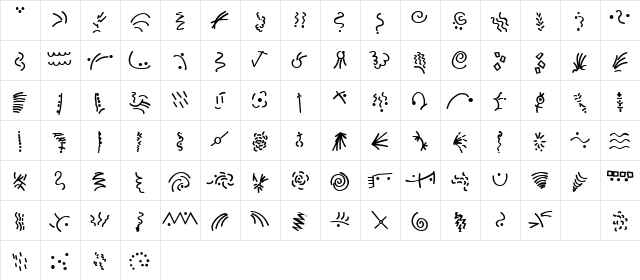
Mini Pics Confetti Medium Free Font
Mini Pics Confetti Medium
Style: Confetti Medium
Design Context for Mini Pics
Mini Pics is a composed and adaptable typeface that performs quietly and consistently across a wide range of design contexts.